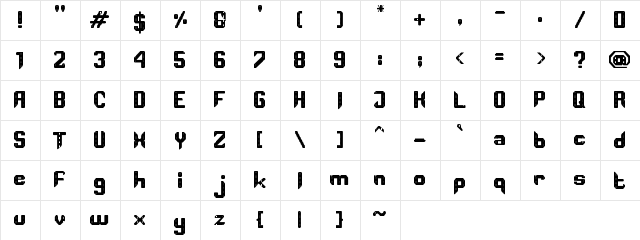
Road Track Regular Font Preview
Road Track Regular
Road Track Regular Font Details
| Designer | e12180120_lavenialulukchristyanto |
Design Context for Road Track Typeface
Road Track is a composed and adaptable typeface that performs quietly and consistently across a wide range of design contexts.